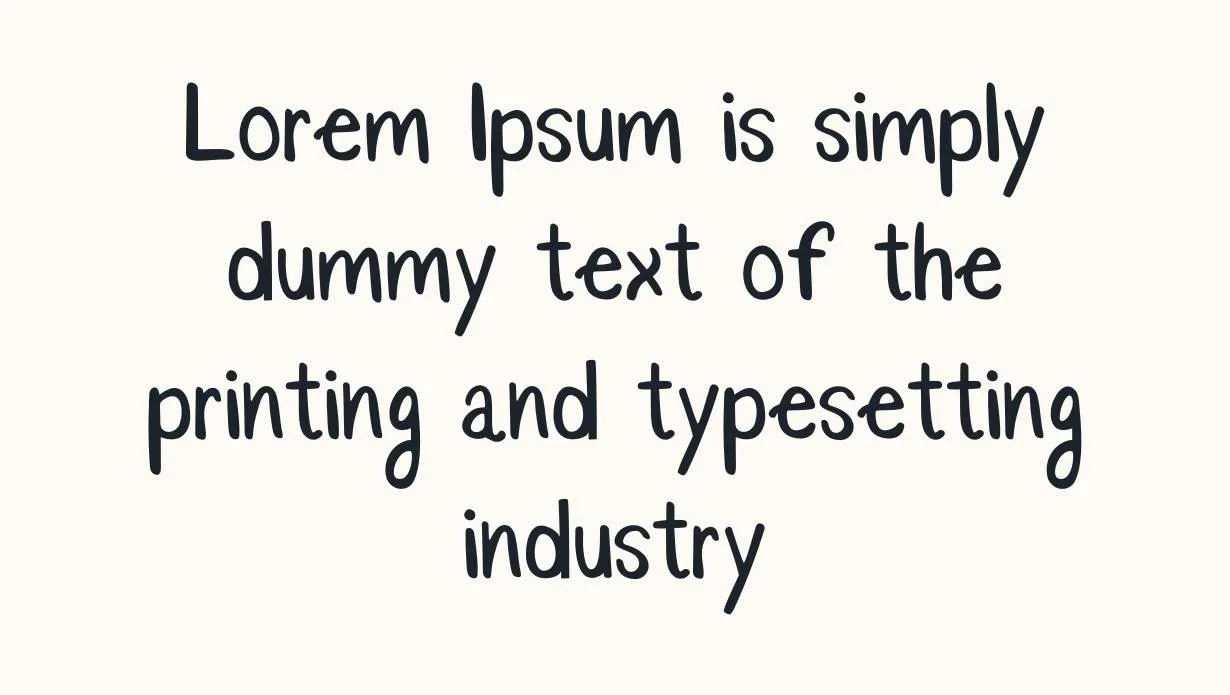
Salty Kitten is a Script font designed by Amy Silva along with an open font license and solo weight, it has OpenType and TrueType formats. It has its own cute and soft texture that can surely make your design stand out, it can be used in macOS and iOS.
It has a great pairing capability, you can combine this typeface with lonssa condensed font to make more fantastic designs.